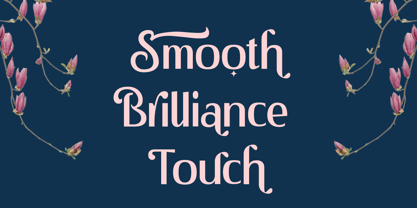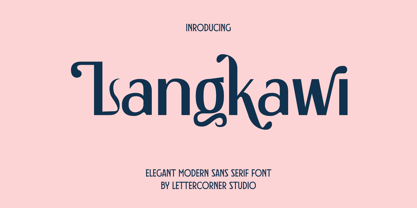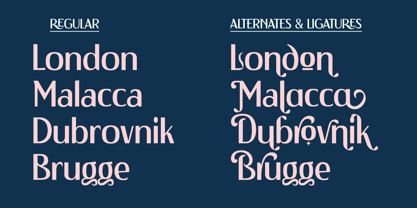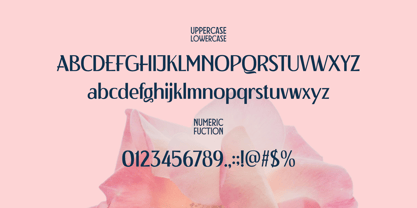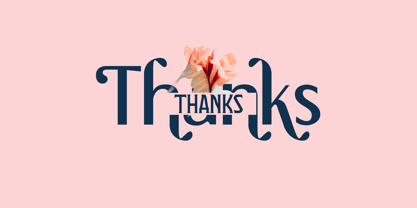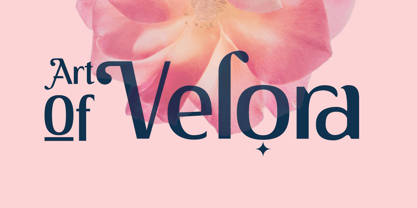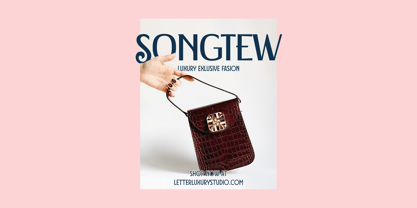
Langkawi
Langkawi is a modern display typeface inspired by the natural elegance of Malaysia’s “Jewel of Kedah.” Blending bold structure with fluid movement, it captures the calm rhythm and organic beauty of island life. Its standout feature lies in its rich set of swash alternates and ornamental ligatures, offering expressive letterforms that feel both refined and distinctive. From a curling L to flowing wi and vi ligatures, each detail is crafted to bring character and sophistication to your typography. With 80+ alternates and 24 ligatures across uppercase and lowercase, Langkawi gives you the freedom to create unique, high-impact compositions with ease. Perfect for headlines, logos, branding, editorial design, and packaging, Langkawi shines at larger sizes where its decorative details can truly stand out. Pair it with clean serifs or minimalist sans-serifs for a balanced, modern look. Features: Uppercase & Lowercase 80+ Alternates 24 Ligatures Multilingual Support PUA Encoded